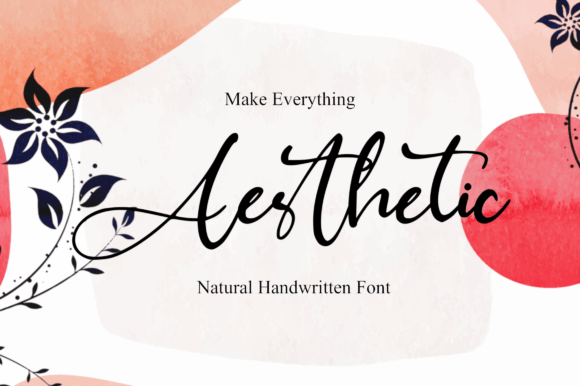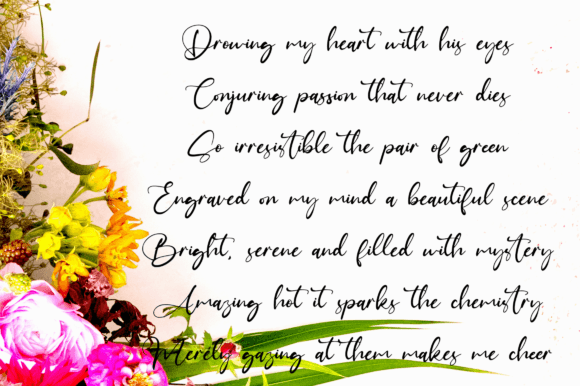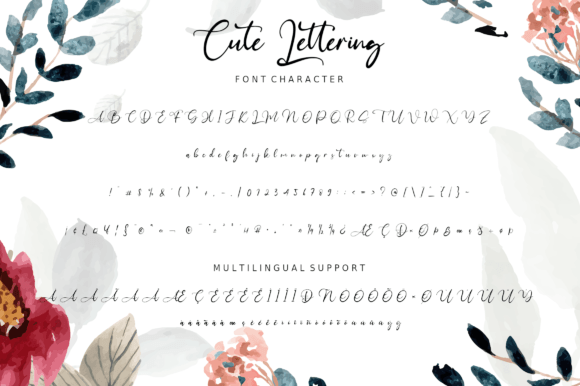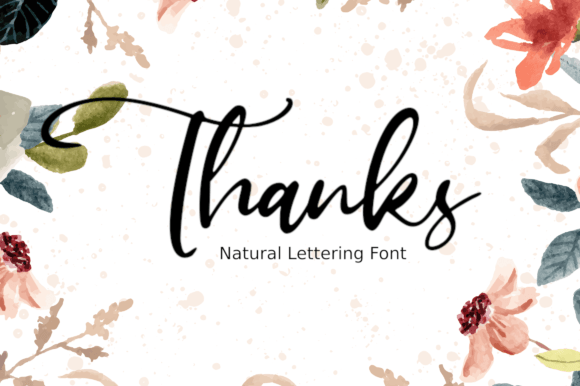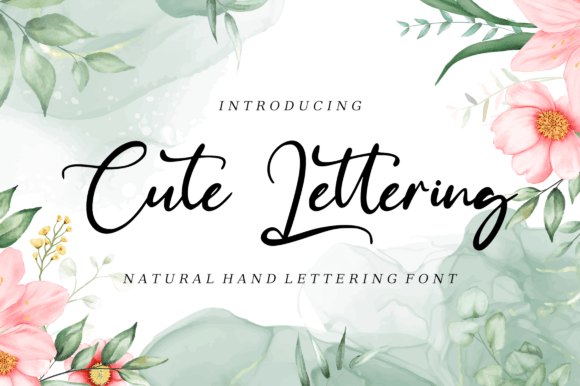
Cute Lettering Font: Elevate Your Designs with a Lovely and Timeless Handwritten Style
Are you a designer or crafter looking for a font that can add a touch of personality and whimsy to your creations? Look no further than the Cute Lettering font! This lovely and timeless handwritten font is perfect for creating eye-catching logos, branding, and quotes that will capture the attention of your audience.
What Makes Cute Lettering Font So Special?
Cute Lettering font is a beautifully designed font that features a unique and charming handwritten style. Its elegant and flowing lines make it perfect for a wide range of design projects, from logos and branding to quotes and social media graphics. The font is also highly versatile, making it suitable for use in both digital and print designs.
One of the best things about Cute Lettering font is that it is PUA (Private Use Area) encoded. This means that you can access all of the glyphs and swashes with ease, giving you even more creative freedom and flexibility when designing. With PUA encoding, you can easily insert special characters, ligatures, and other unique elements into your designs, taking them to the next level.
Cute Lettering font is a must-have for designers and crafters who want to add a personal touch to their creations. Whether you’re designing a logo, creating a social media graphic, or crafting a handmade card, this font is sure to inspire. Its charming and whimsical style makes it perfect for a wide range of projects, from feminine and elegant designs to playful and fun ones.
Benefits of Using Cute Lettering Font
- Elegant and Timeless Design: Cute Lettering font features a beautiful and timeless handwritten style that will never go out of fashion.
- Highly Versatile: The font is suitable for use in a wide range of design projects, from logos and branding to quotes and social media graphics.
- PUA Encoded: Easy access to all glyphs and swashes, giving you even more creative freedom and flexibility.
- Perfect for Designers and Crafters: A must-have for anyone who wants to add a personal touch to their creations.
Tips and Tricks for Getting the Most Out of Cute Lettering Font
- Experiment with Different Sizes and Styles: Try out different font sizes and styles to find the perfect look for your project.
- Combine with Other Fonts: Pair Cute Lettering font with other fonts to create a unique and eye-catching design.
- Use in Digital and Print Designs: The font is suitable for use in both digital and print designs, making it perfect for a wide range of projects.